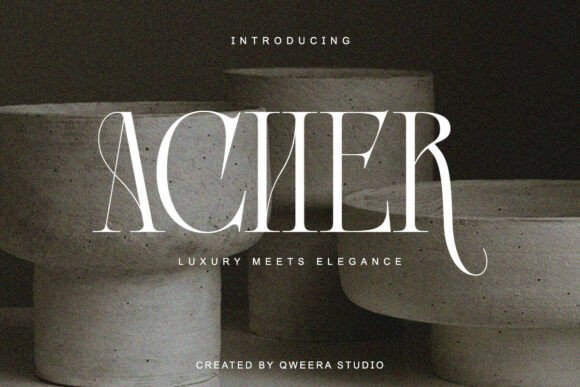
Acher Font: Elevate Your Design with Elegant Luxury Serif
In the world of typography, the right font can make all the difference in creating a lasting impression. For designers seeking a refined and sophisticated look, Acher Font is an excellent choice. This elegant luxury serif typeface seamlessly blends classic elegance with a modern sensibility, making it perfect for a wide range of design applications.
What is Acher Font?
Acher Font is a carefully crafted serif typeface designed to bring a touch of timeless sophistication to various design projects. With its regular and italic styles, this versatile font is suitable for branding, editorial layouts, packaging, posters, and high-end logo design.
Key Features of Acher Font
- Classic Elegance with a Modern Twist: Acher Font boasts a refined design that combines the best of classic serif typography with a modern edge.
- Timeless Sophistication: The font’s elegant letterforms, balanced contrast, and carefully crafted details make it perfect for designs that require a sophisticated look.
- Alternates and Ligatures: Acher Font offers added flexibility with its alternates and ligatures, allowing designers to create a distinctive, custom look.
- Multilingual Support: With support for multiple languages, Acher Font is an excellent choice for global projects.
The Design of Acher Font
Acher Font is designed with both regular and italic styles, providing a comprehensive range of typographic options. The font’s letterforms are characterized by their:
- Graceful Curves: Acher Font’s letterforms feature smooth, flowing curves that add to the font’s elegance.
- Balanced Contrast: The font’s balanced contrast between thick and thin strokes creates a sense of harmony and sophistication.
- Carefully Crafted Details: Acher Font’s attention to detail is evident in its carefully crafted letterforms, which feature subtle nuances that enhance the font’s overall aesthetic.
Use Cases for Acher Font
Acher Font is an incredibly versatile typeface that can be used in a wide range of design applications, including:
- Branding: Acher Font is perfect for creating sophisticated brand identities that exude elegance and refinement.
- Editorial Layouts: The font’s classic elegance makes it an excellent choice for editorial layouts, such as magazines, newspapers, and books.
- Packaging: Acher Font’s luxurious feel makes it suitable for high-end packaging designs that require a touch of sophistication.
- Posters: The font’s bold, yet elegant design makes it perfect for creating eye-catching posters that demand attention.
- High-End Logo Design: Acher Font’s refined design makes it an excellent choice for creating high-end logos that require a touch of luxury.
Benefits of Using Acher Font
Acher Font offers a range of benefits that make it an attractive choice for designers, including:
- Clarity and Structure: The font’s clear and structured design makes it easy to read and understand.
- Subtle Flair: Acher Font’s subtle nuances and elegant details add a touch of sophistication to any design.
- Versatility: The font’s versatility makes it suitable for a wide range of design applications.
- Elegant Finish: Acher Font delivers a polished, elegant finish that enhances any visual identity.
In conclusion, Acher Font is an exceptional choice for designers seeking a refined and sophisticated typeface. With its classic elegance, modern sensibility, and versatile design, Acher Font is perfect for a wide range of design applications. Whether used for print or digital applications, Acher Font delivers a polished, elegant finish that enhances any visual identity.